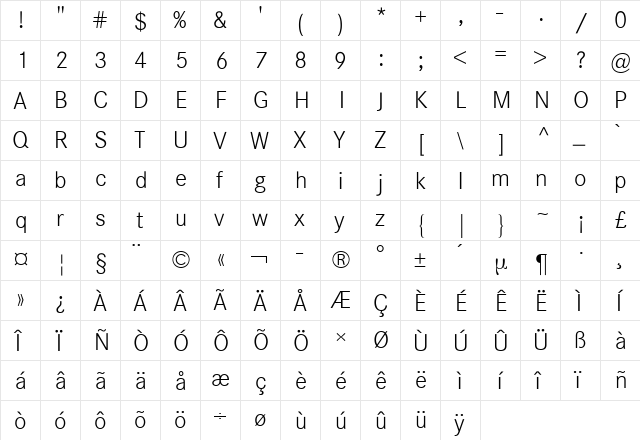
Corporate S BQ Light
Design Context for Corporate S BQ Typeface
Corporate S BQ takes a measured approach to typography — its balanced proportions and neutral character make it a reliable workhorse for both digital and print work. Its slender proportions lend an understated elegance to any composition.